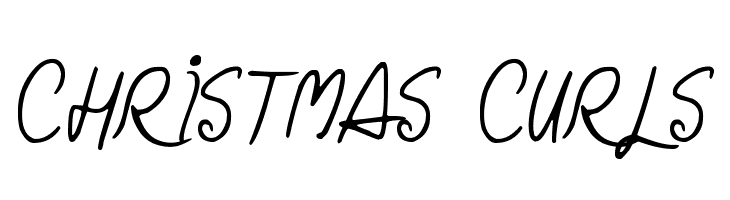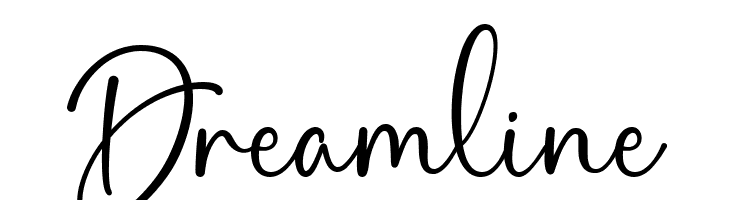
( Fonts by Tokokoo Studio )
A playful and bold font with exaggerated, uneven letterforms.
( Fonts by dustBUST - Andreas Nylin )
A bold, geometric font with a futuristic and digital aesthetic.
A bold, distressed font with a rugged, grunge-like appearance and expanded width.
A bold, expressive font with a handcrafted, artistic flair.
A dynamic, handwritten script font with an italic slant and medium stroke thickness.
A bold, italic, textured font with an expanded width and dynamic style.
A sleek, modern, semi-condensed extra light italic font with clean lines and balanced spacing.